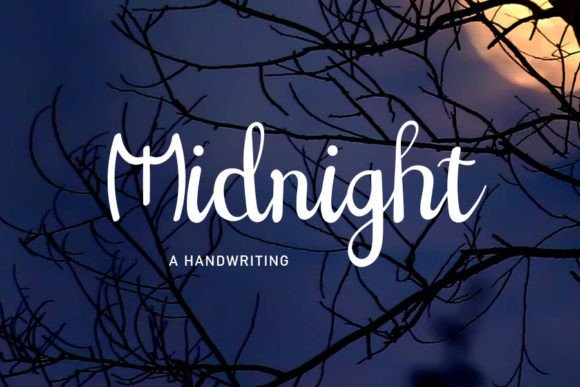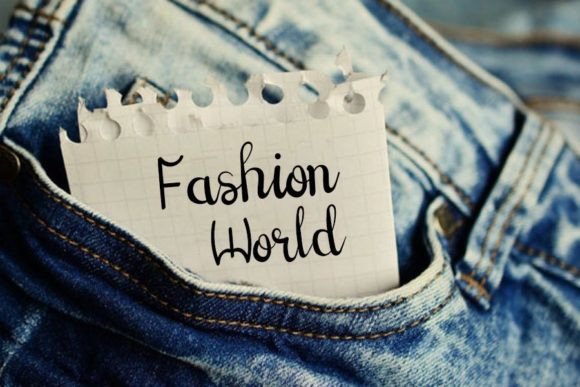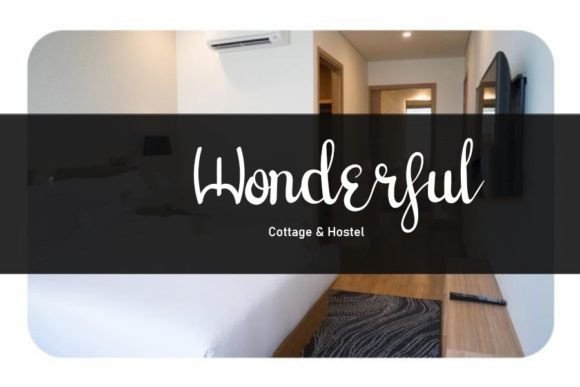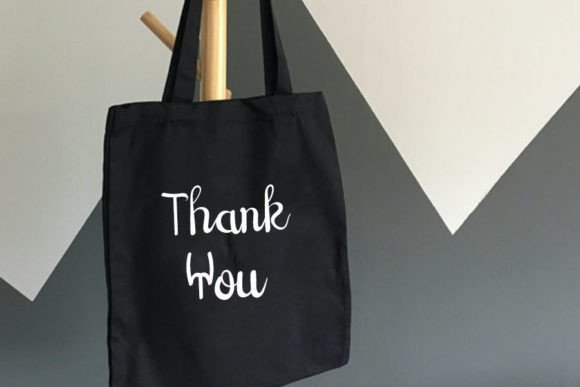
About Midnight Font
“Midnight” is a stylish handwritten font that adds a touch of elegance and romance to your design projects. This versatile font is suitable for a wide range of applications, from crafting greeting cards to creating eye-catching headlines. It is guaranteed to infuse a sense of romance into each of your creations.
One of the standout features of “Midnight” is its ability to convey a sense of style and romance while maintaining a contemporary appeal. The font’s characters possess a sleek and fashionable quality that adds character and flair to your designs. “Midnight” is a versatile choice for projects where you want to create a romantic and stylish atmosphere.
The adaptability of “Midnight” makes it suitable for various creative applications. You can use it to design romantic greeting cards that capture the essence of love, craft stylish and romantic headlines that grab attention, create personalized invitations with a modern twist, or explore any other design project that requires a touch of modern romance. “Midnight” seamlessly adapts to your creative vision, making it a versatile and valuable font.
“Midnight” stands out as a font that brings a sense of authenticity and romance to your designs. Its handwritten style adds a personal and genuine touch to your projects, making them feel both romantic and contemporary. “Midnight” is a font that allows you to infuse your design work with a touch of elegance and modern romance.
Incorporating “Midnight” into your design projects will likely result in outcomes that are not only stylish and modern but also full of romantic charm. Its sleek and fashionable appearance makes it an excellent choice for creating designs that resonate with sophistication and allure. Embrace the style and romance of “Midnight” in your next project, and watch as it elevates your typography and overall design to a level of elegance and modernity that leaves a lasting impression.